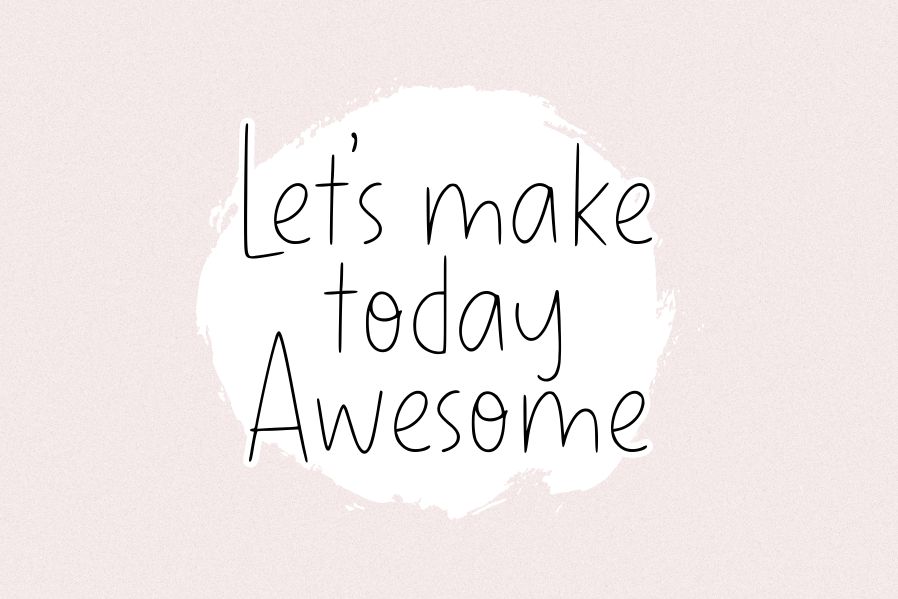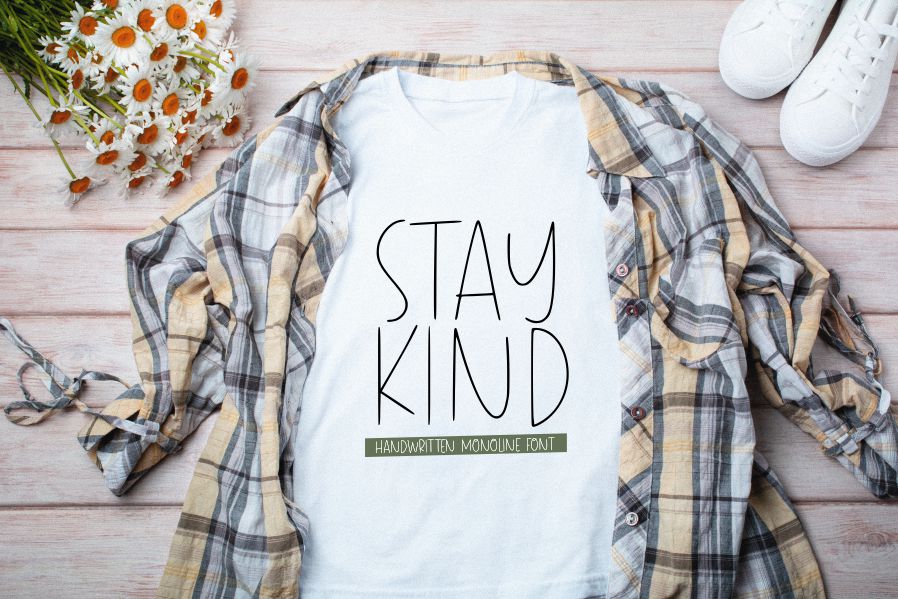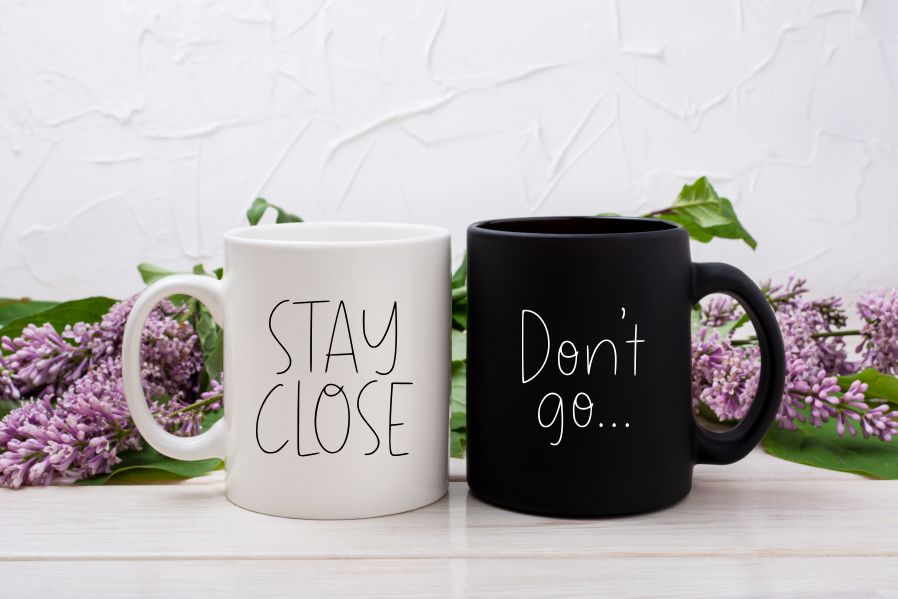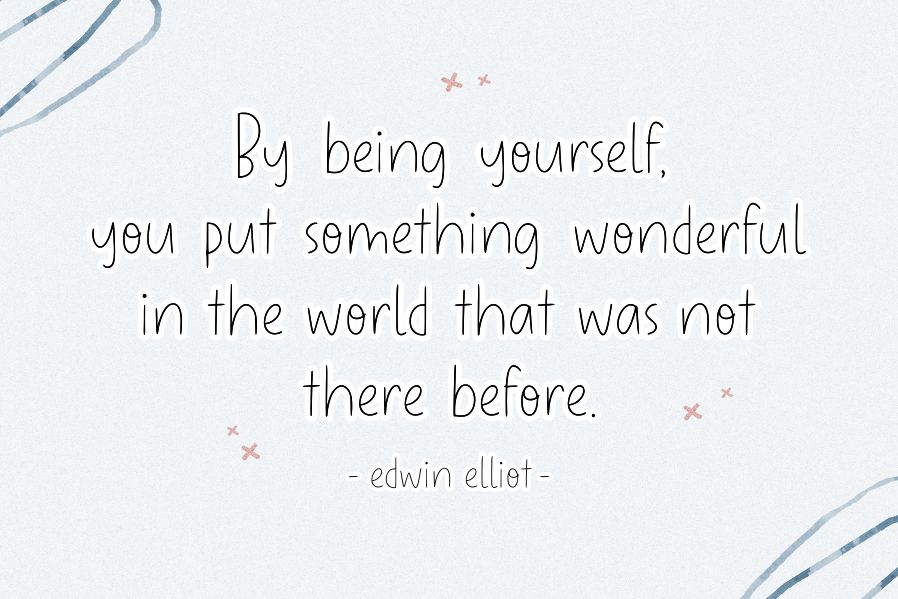
Elfeylasting Font
Elfeylasting Script Font
It’s a handwrittten monoline Font. Elfeylasting is perfect for product packaging, branding project, megazine, social media, wedding, or just used to express words above the background. This font includes OTF&TTF&Woff, Elfeylasting also multilingual support.